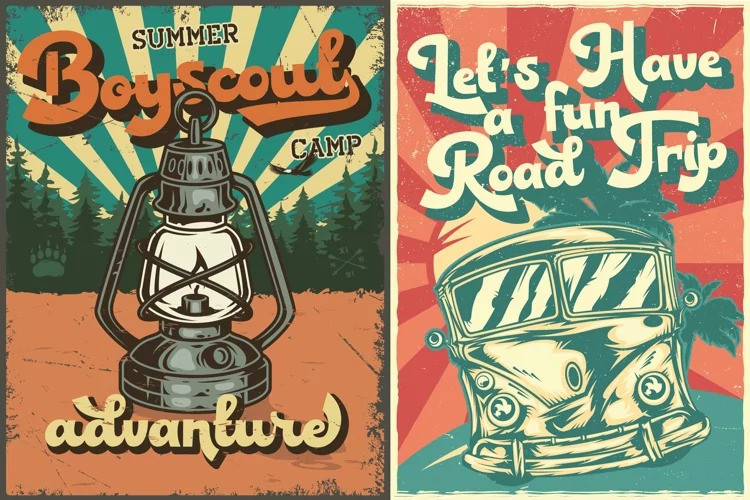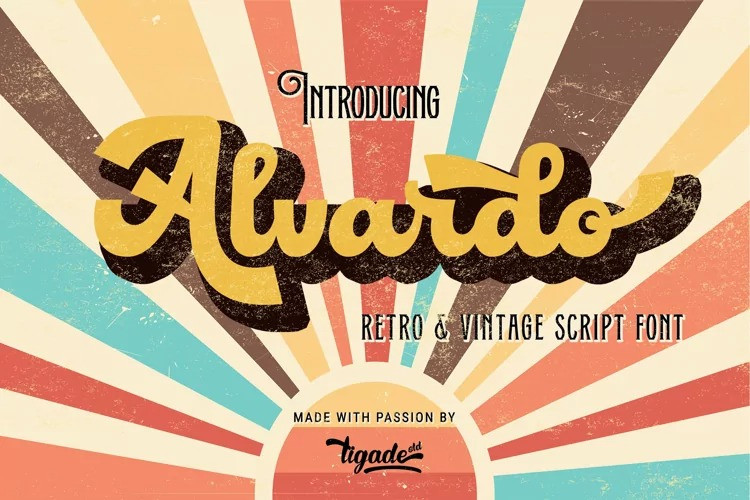
Alvardo Bold Script Font
This is a cursive and vintage styled handwritten font package by Tigade Std. This font is PUA encoded which means you can access all of the glyphs and stylistic alternates with ease! It is looking great on product, headlines, magazines, logos, poster, branding and many more!. Use this font to bring your design back to the oldies!